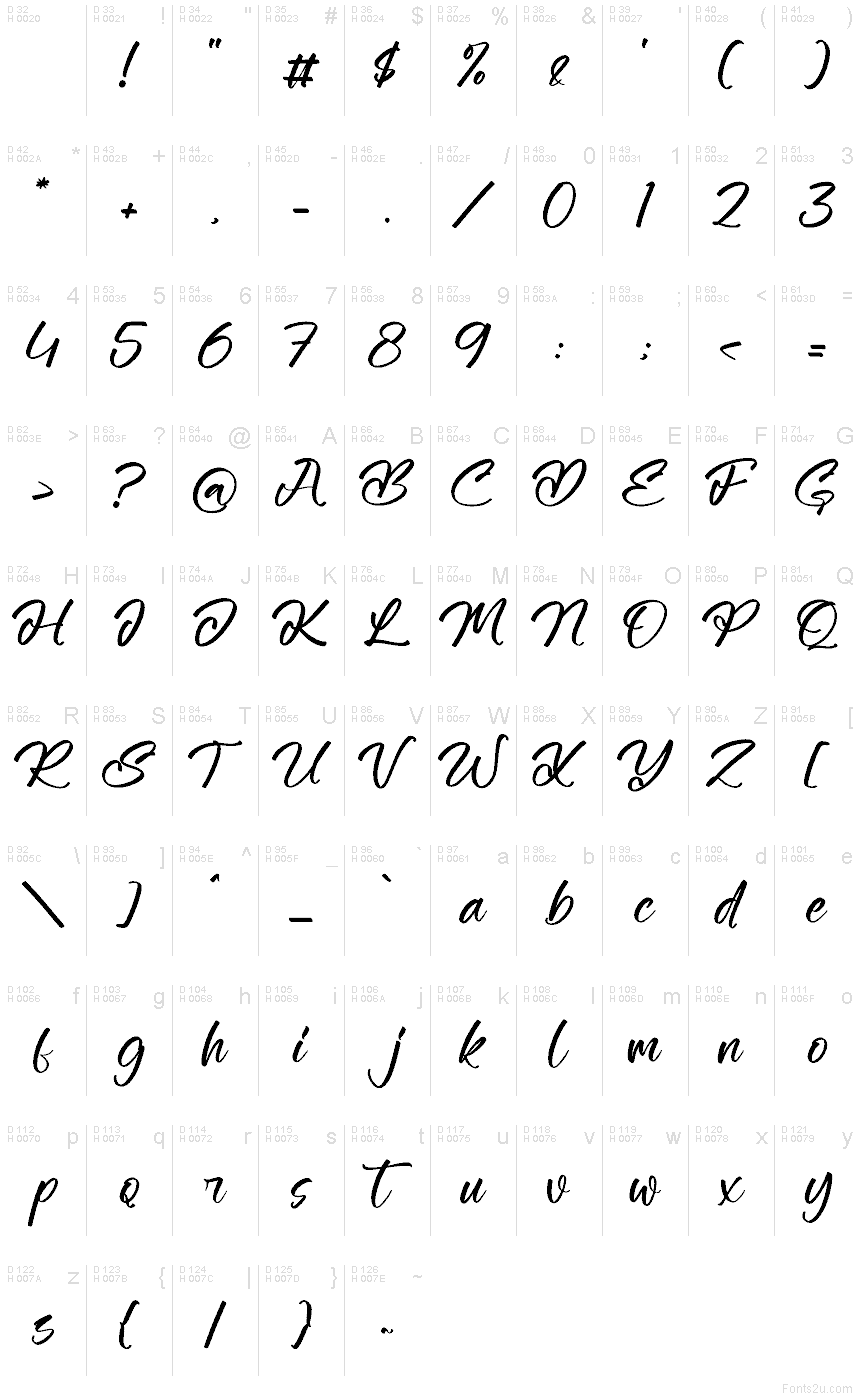
Darhouty Frederics
Darhouty Frederics font by Letterena Studios is a free calligraphy font with an elegant and sophisticated style. It displays a flowing signature-like presence with romantic details that capture the reader’s attention. Each stroke and curve have both an immediate and lasting visual effect, inviting viewers to explore smooth and modern designs created effortlessly by the user.
The professional style allows designers to connect and balance brand identities for makeup artists, boutiques, jewelry stores, accessory shops, salons, tailors & designers. The exquisite collection can also be used for classic formal invitations like those of weddings alongside feminine signatures or greetings cards.